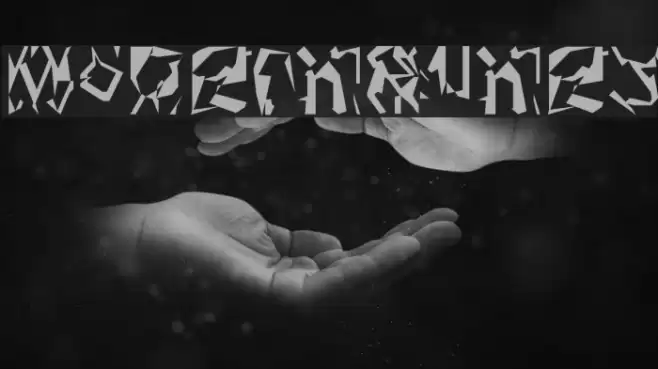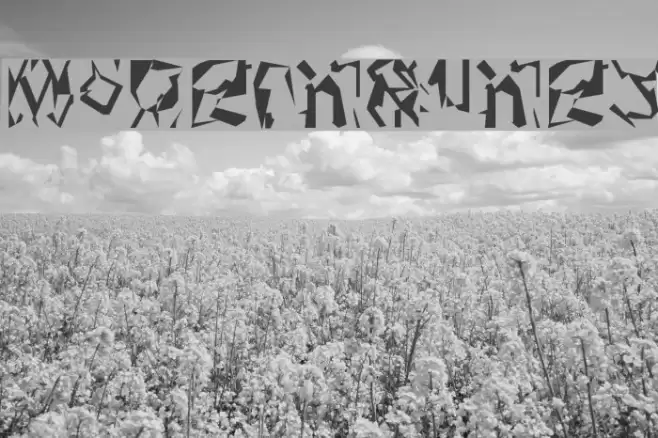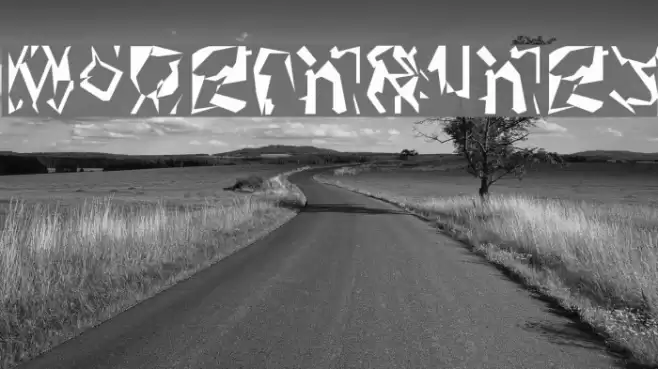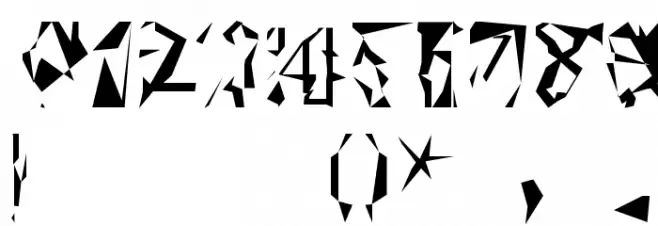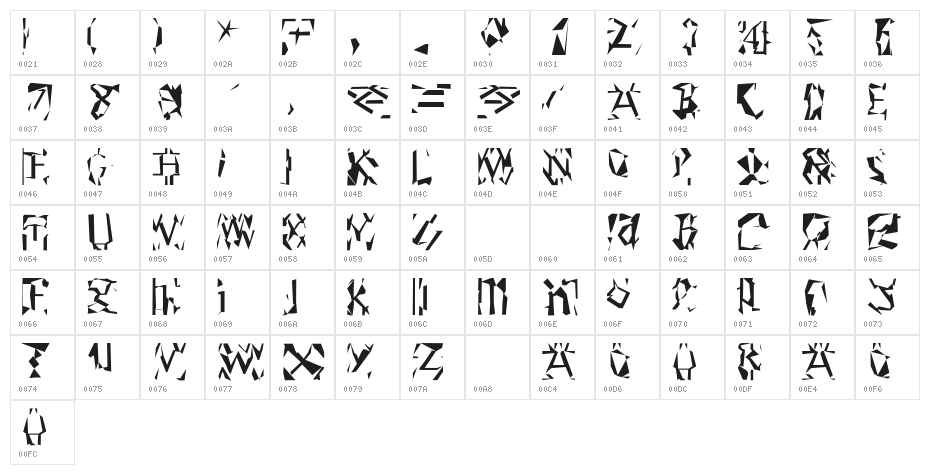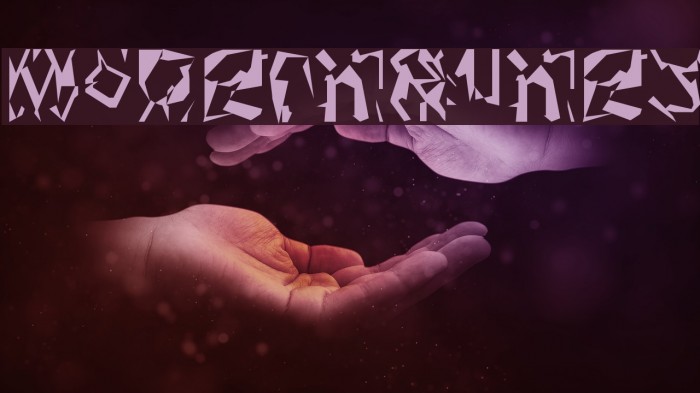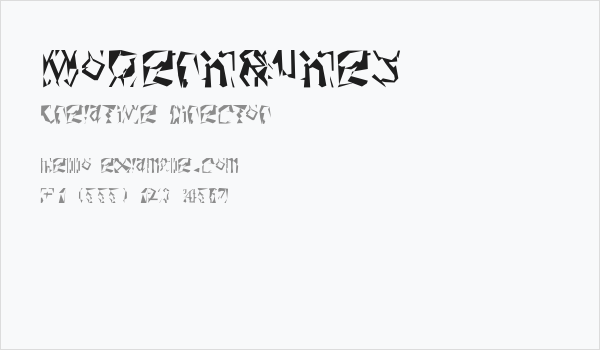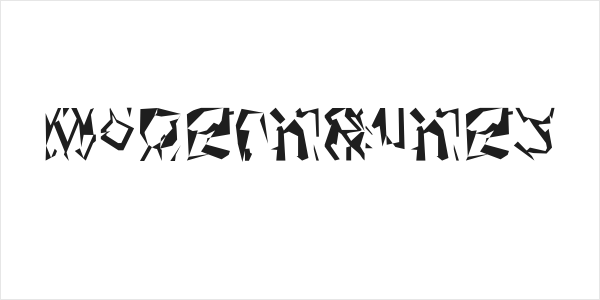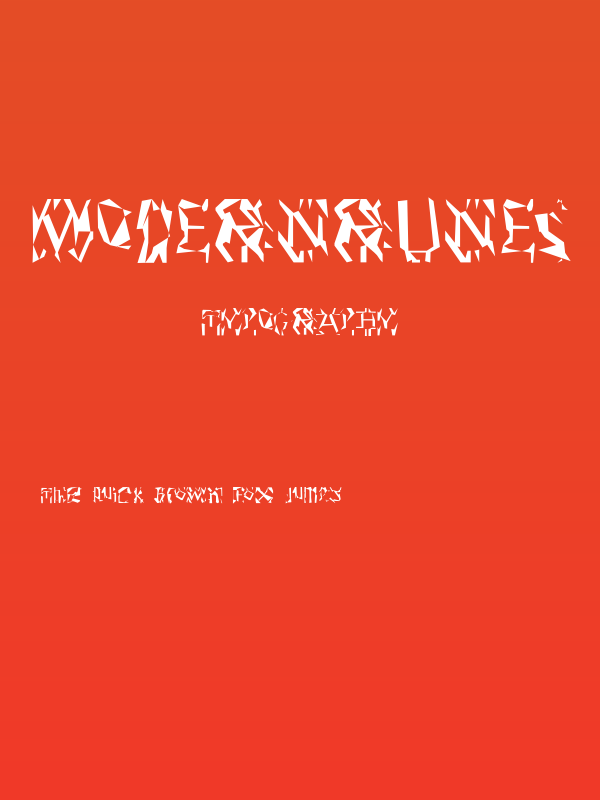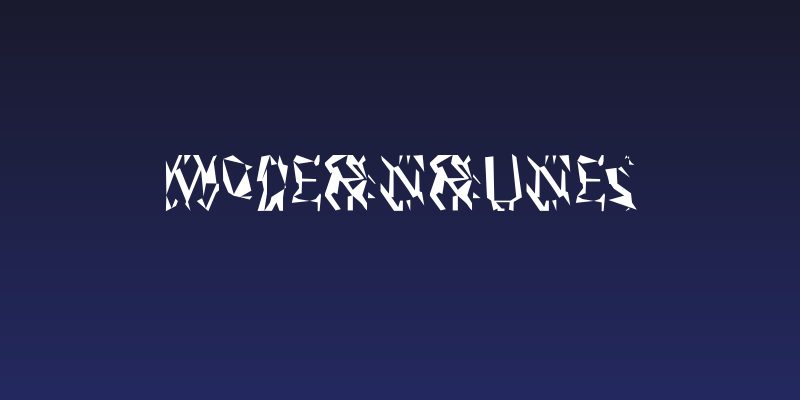
ModernRunes Font
ModernRunes Description
This font features a highly abstract and fragmented design, reminiscent of modern art and geometric patterns. Each character is composed of sharp, angular shapes that create a sense of movement and energy. The letters are bold and striking, with a unique style that makes them stand out. The font's design is both futuristic and edgy, making it suitable for projects that require a contemporary and unconventional look. The characters are distinct and easily recognizable despite their complex structure, making them suitable for creative and artistic applications.
A bold, abstract font with sharp, angular shapes and a futuristic style from Uncategorized fonts.
- Proposed Projects: Ideal for modern art projects, edgy branding, album covers, and creative posters.